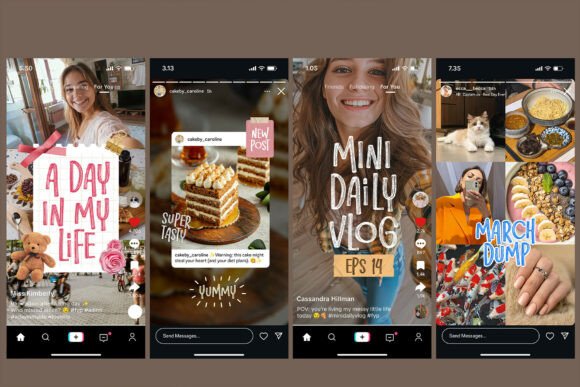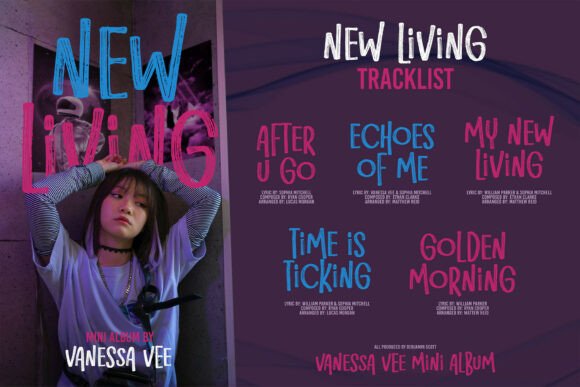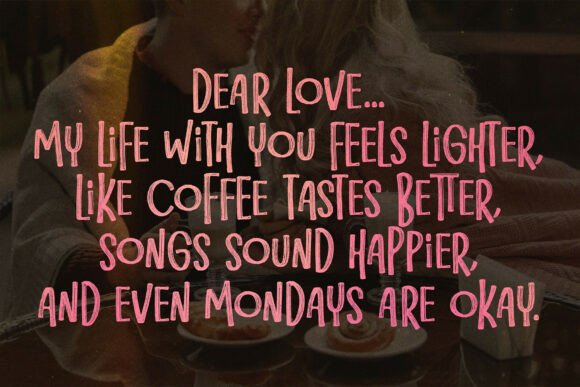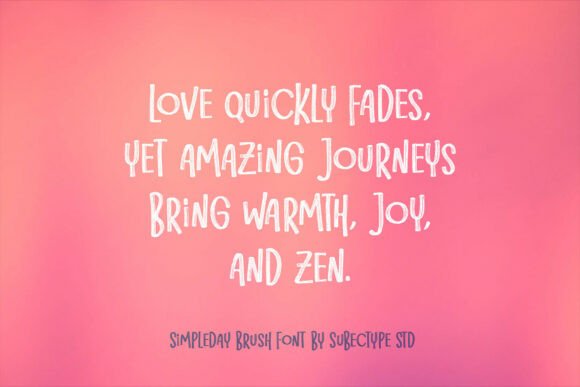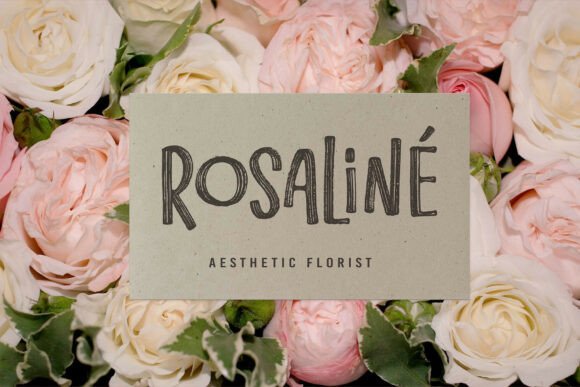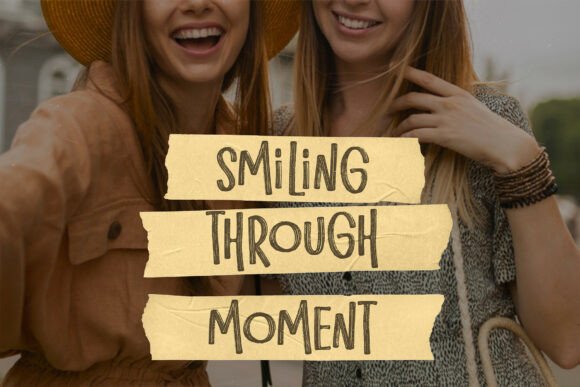
Introduction to Simpleday Brush Font
As a designer, have you ever stumbled upon a font that instantly elevates your creative project and makes it stand out from the crowd? For me, that moment came when I discovered the charming Simpleday Brush Font. Its playful strokes and casual flow are reminiscent of handwriting full of joy and energy, making it the perfect addition to any design.
Whether you’re working on a daily vlog, lifestyle content, or social media post, the Simpleday Brush Font gives your design a friendly and approachable look that’s sure to resonate with your audience. Its versatility makes it an ideal choice for designers who want to add a personal touch to their projects without compromising on quality. With its transparent background and free download option, this high-quality design resource is a must-have for any creative project.
- Unique brush stroke style, adding a personal touch to any design project.
- Perfect for use in digital design, including logos, graphics, and typography, as well as print materials like business cards and brochures.
Honest Review: Simpleday Brush Font
I recently had the chance to work with the Simpleday Brush Font, and I must say it’s been a delightful experience. This design resource is perfect for those who want to add a touch of elegance and sophistication to their creative project.
One of the standout features of the Simpleday Brush Font is its high-quality design. The font is available in a transparent background, making it easy to work with and customize to fit your needs. Plus, it’s a free download, which is a huge bonus for designers on a budget.
- Wide range of design possibilities
- ⚠️ Limited availability of font styles (only a few options available)
- ⚠️ Not ideal for use in very large font sizes (may become pixelated)
Overall, I’m really impressed with the Simpleday Brush Font. It’s a great addition to any designer’s toolkit, and I’m sure I’ll be using it for many future projects. If you’re looking for a high-quality, free font to use in your creative project, I highly recommend giving the Simpleday Brush Font a try.
Common Use Cases for Simpleday Brush Font
The Simpleday Brush Font is perfect for a variety of creative projects, including custom graphics, social media posts, marketing materials, presentations, reports, and documents. Its unique brush stroke effect makes it ideal for designers looking for a high-quality design resource that can add a personal touch to their work.